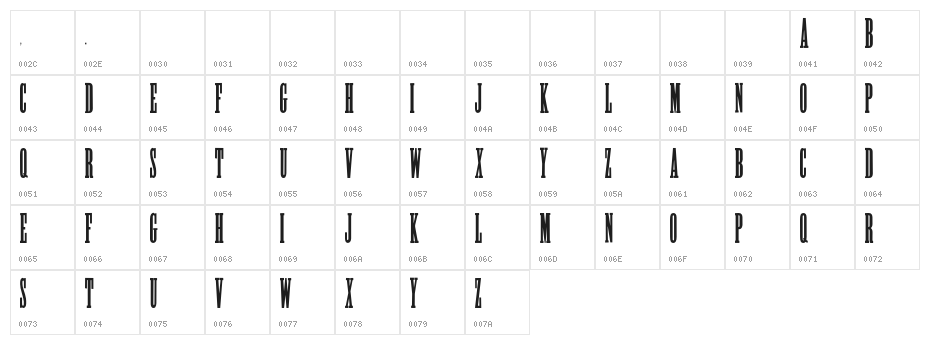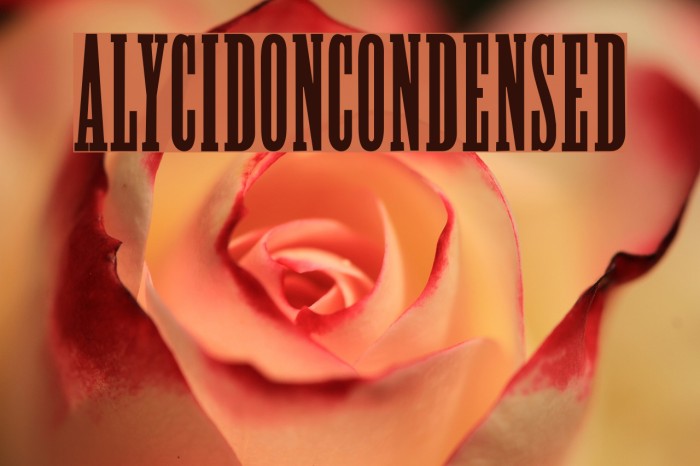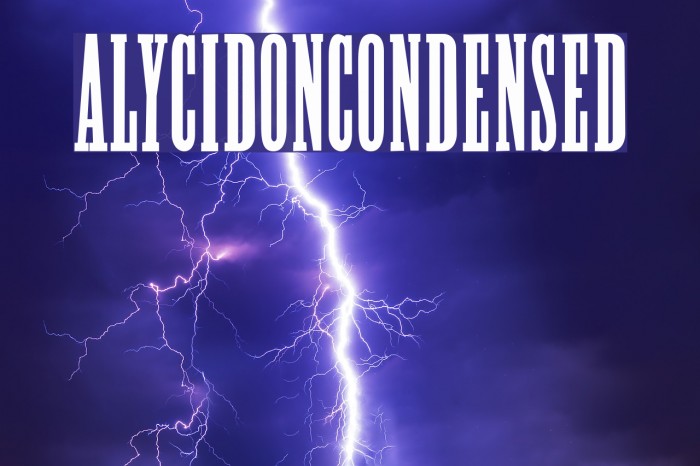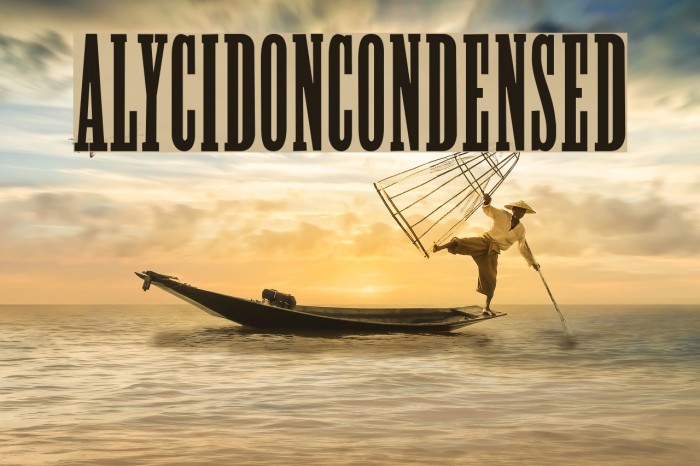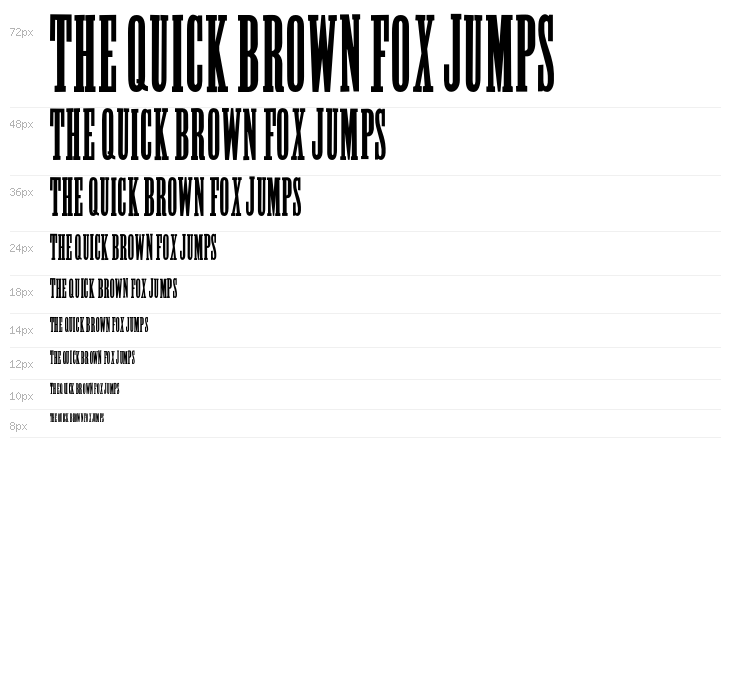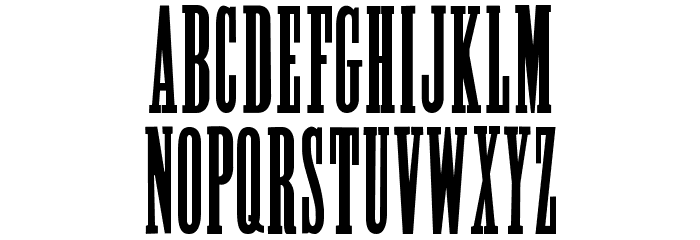
Alycidon-Condensed Font
Alycidon-Condensed Description
This font features a bold and condensed style, characterized by its tall and narrow letterforms. The strokes are thick and consistent, giving it a strong and impactful appearance. The vertical emphasis and tight spacing between characters enhance its condensed nature, making it suitable for creating a striking visual impact. The font's design is reminiscent of vintage poster typography, with a modern twist that adds to its versatility. It lacks any decorative elements, focusing on clean lines and a straightforward presentation.
| Proposed Projects | Ideal for use in posters, headlines, and branding projects where a strong, impactful typeface is needed. |